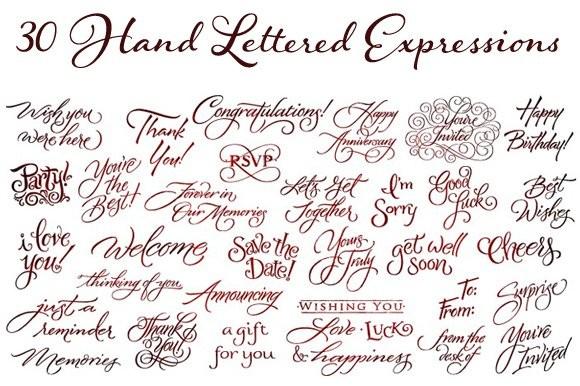
Greeting Cards Font Description
This assortment of over 30 hand-lettered expressions has so many uses! From greeting cards to email signatures, flyers to hang tags and more. Express yourself in style! Most of these versatile expressions are designed with spacing considered, so if the greeting has more than one word, one version has all of the words on one line, and an alternate version has all of the words stacked on two or more lines. For your convenience, a folder with transparent GIFs of all expressions have been included making it even easier to add to your emails and/or publications!
• A Gift for You • Announcing • Best Wishes • Cheers • Congratulations • Forever in Our Memories • From the Desk of • Get Well Soon • Good Luck • Happy Anniversary • Happy Birthday • I Love You • I’m Sorry • Just a Reminder • Let’s Get Together • Memories • Party • RSVP • Save the Date • Surprise • Thank You (casual style) • Thank You (formal style) • Thinking of You • To: From: • Welcome • Wish You Were Here • Wishing You Love, Luck & Happiness • You’re Invited (formal style) • You’re Invited (casual style) • You’re the Best • Yours Truly